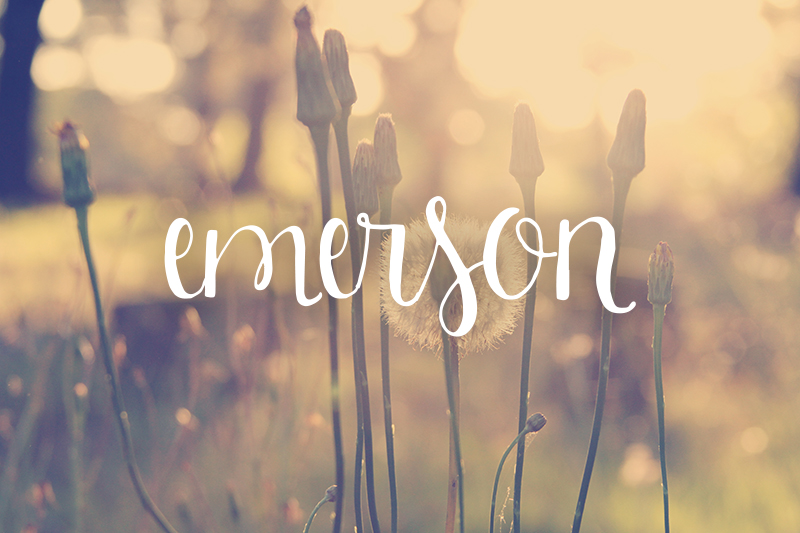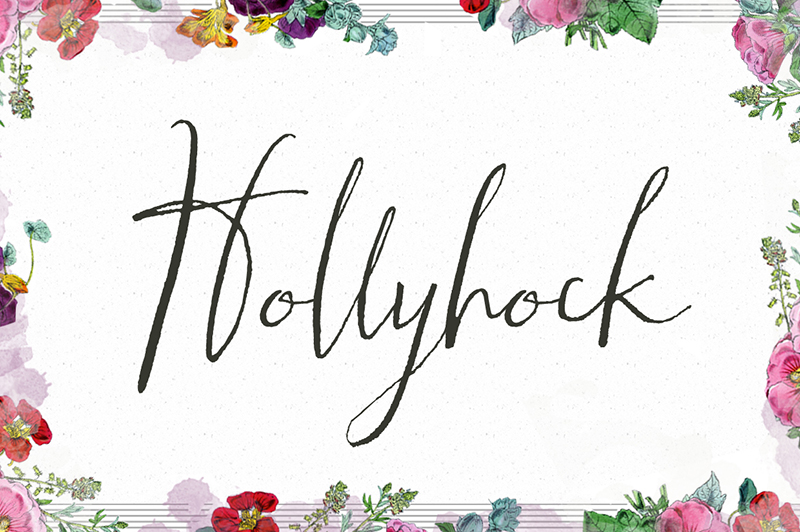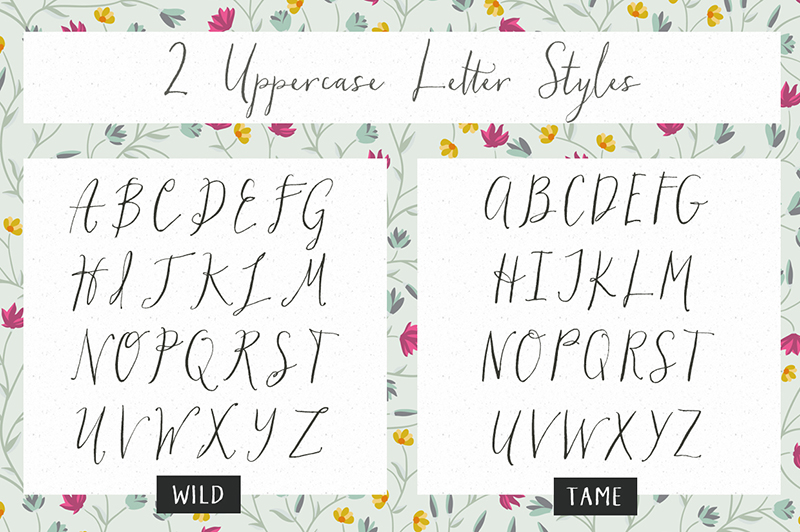
TUESDAY FONTS: Emerson, Hollyhock and Fram
Tuesday is here and so is our category: Tuesday Fonts. This time we present to you Emerson, Hollyhock and Fram, they are Premium fonts.
Emerson
Emerson is a lovely hand lettered script font. Now includes uppercase letters, along with numbers and punctuation.
Hollyhock
Meet Hollyhock, a modern and messy calligraphy font with wild, tall letterforms that refuse to be tamed. Inspired by calligraphy the breaks the rules and hollyhocks that grow rebelliously where they please.
This font includes two full sets of capital letters… a set that is tall, energetic, and wild as well as a set a bit more tame and subdued. Open type features in this font include contextual alternates, fractions, ordinals, discretionary ligatures, and swashes. Use contextual alternates to add subtle swashes to the beginnings and ends of your letters. Use your open type swashes panel to use the many and various doodles, swirls, and swashes to manually add flare and flavor to your text. Or, install the separate Hollyhock Ornaments font to access the swashes and doodles more easily.
Fram
Fram is an uppercase stencil typeface. It comes with a fine-tuned kerning, its extensive character set ensures multiple languages coverage and the design is adapted to different ranges of size through size-specific optical compensation. Fram L is intended for use at large sizes and Fram S with larger gaps guarantees good performance even when the size is reduced.